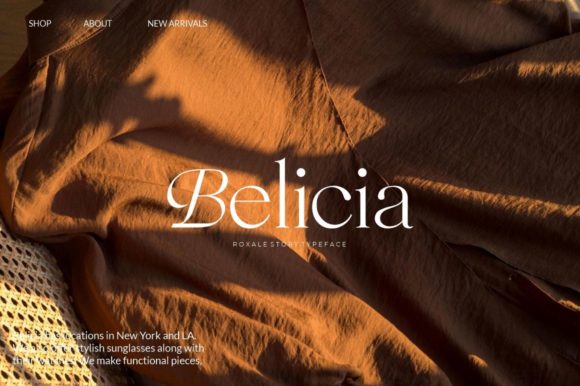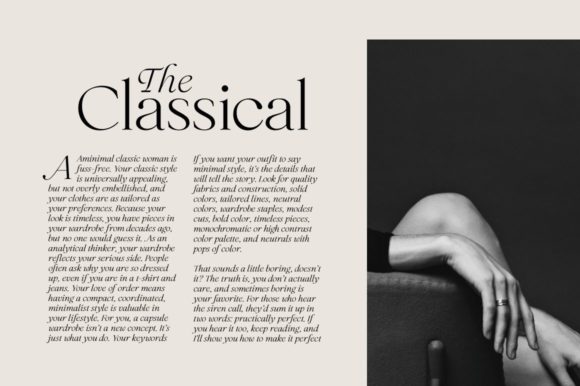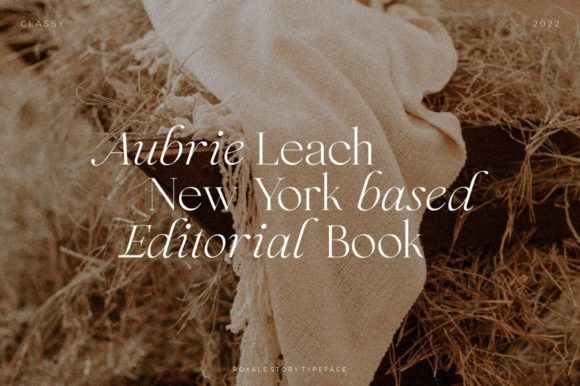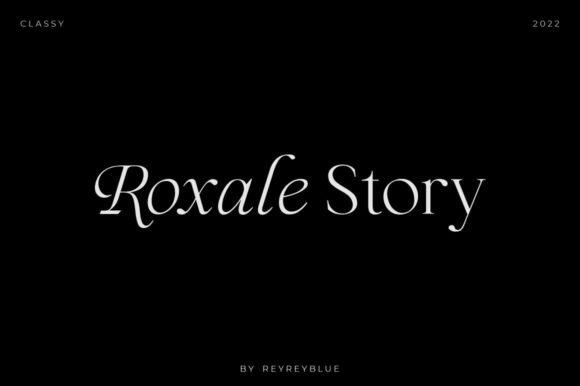
Introduction to Roxale Story Font
Roxale Story is a gorgeous duo font (script and serif).
It is perfect for luxury logo and branding, classy editorial design, woman magazine, cosmetic brand, fashion promotional, art gallery branding, museum, historical of architectural, boutique branding, stationery design, blog design, modern advertising design, card invitation, art quote, home decor, book/cover title, special events and many more ideas .